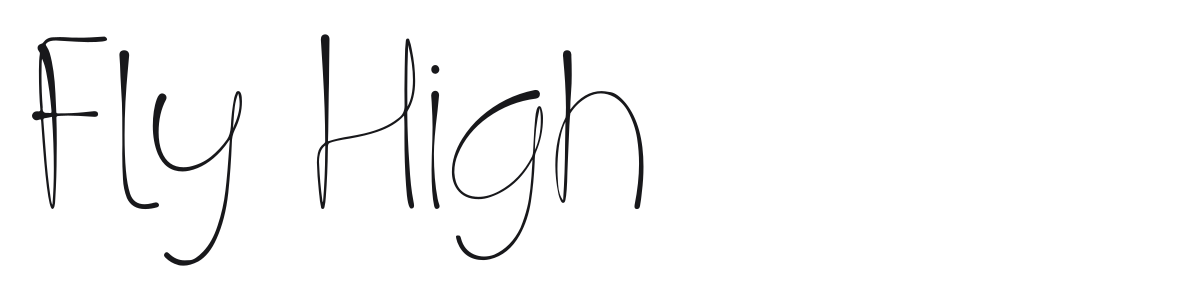
Fly High
Fly High is an ultra-thin casual handwritten font with a loose, fast-paced rhythm that feels genuinely pen-drawn. The nearly hairline strokes and gently bouncing baseline give it an effortless, breezy quality that works well for invitations, packaging labels, and lifestyle branding. It carries warmth without being overly decorative.